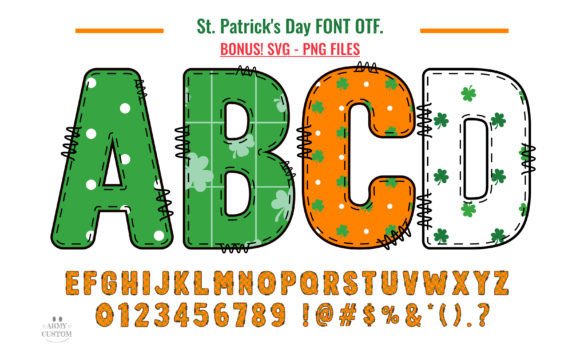
Celebrate with the St. Patrick's Day Collection Font
Finding the right typography for a seasonal campaign can often feel like searching for a pot of gold at the end of a rainbow. You need something that captures the festive spirit without looking generic or clip-art heavy. The St. Patrick's Day Collection offers a sophisticated solution for designers and creators looking to inject authentic Irish charm into their work. It is a premium font resource designed specifically for the holiday, moving beyond simple green text to deliver a truly thematic visual experience.
Visual Characteristics and Design Personality
At its core, the St. Patrick's Day Collection is a display typeface that prioritizes personality and impact. The visual design is immediately striking: each character is filled with a bright, vibrant green background and adorned with a distinct pattern of shamrocks. This isn't just a flat color fill; the pattern creates a sense of texture and depth that standard vector fonts lack.
What truly sets this typeface apart, however, is the treatment of its outlines. Each letter features a black, sketch-like border that provides a hand-drawn effect. This rough-hewn aesthetic softens the boldness of the shapes, making the font feel approachable and artisanal rather than rigid. The result is a bold, playful style that conveys a festive mood appropriate for St. Patrick’s Day celebrations. It effectively evokes the celebratory feel of the holiday, balancing high visibility with a whimsical, artistic flair.
Practical Applications: Where This Font Shines
Because the St. Patrick's Day Collection is a highly thematic display font, it is best utilized for headlines, logos, and short bursts of text rather than long-form body copy. Its bold nature makes it an excellent choice for grabbing attention in crowded visual environments.
For entrepreneurs and small business owners, this font is a powerful tool for seasonal branding. Imagine using it for a bakery’s window signage announcing "Irish Soda Bread" or a pub’s menu headers for a St. Paddy's Day event. It instantly signals the theme to customers without needing additional graphics.
Graphic designers and marketers will find it invaluable for social media graphics and digital advertising. In the fast-scrolling environment of Instagram or Facebook, the bright green fill and high-contrast black outline ensure that text pops against both light and dark backgrounds. It works exceptionally well for party invitations, flyers, and digital headers where a festive atmosphere is required.
For crafters and hobbyists, particularly those working on print-on-demand products or physical merchandise, the font offers a cohesive look. It is ideal for T-shirt designs, tote bags, and greeting cards. However, it is crucial to note the technical specifications for physical production.
Technical Compatibility and Workflow Integration
One of the most critical aspects of working with a color font is understanding its technical limitations and software requirements. The St. Patrick's Day Collection is a creative font that relies on specific software capabilities to render its color and pattern correctly.
However, it is vital to manage your workflow expectations regarding cutting machines. The OTF and/or TTF files of the color version are not compatible with Cricut machines. If you are designing specifically for a Cricut cutting machine, you will likely need to use the solid, non-color version of the font (if available) or vectorize the text in Illustrator before importing it into your cutting software. Always test your font files in a small sample project before committing to a large production run to ensure the file renders as expected in your specific environment.
Strategic Pairing and Brand Consistency
While the St. Patrick's Day Collection is a showstopper, it requires thoughtful pairing to maintain professionalism and readability. Because the font is dense with visual information (the shamrock pattern and the outline), it can become difficult to read if used for long sentences or at small sizes.
To create visual hierarchy, pair this display font with a clean, simple sans serif font or a legible serif font for body text. For example, if you are designing a party flyer, use the St. Patrick's Day Collection for the headline "Happy St. Patrick's Day," but switch to a standard sans serif like Helvetica or Open Sans for the date, time, and location details. This contrast ensures that the theme is established immediately, while the logistical information remains accessible.